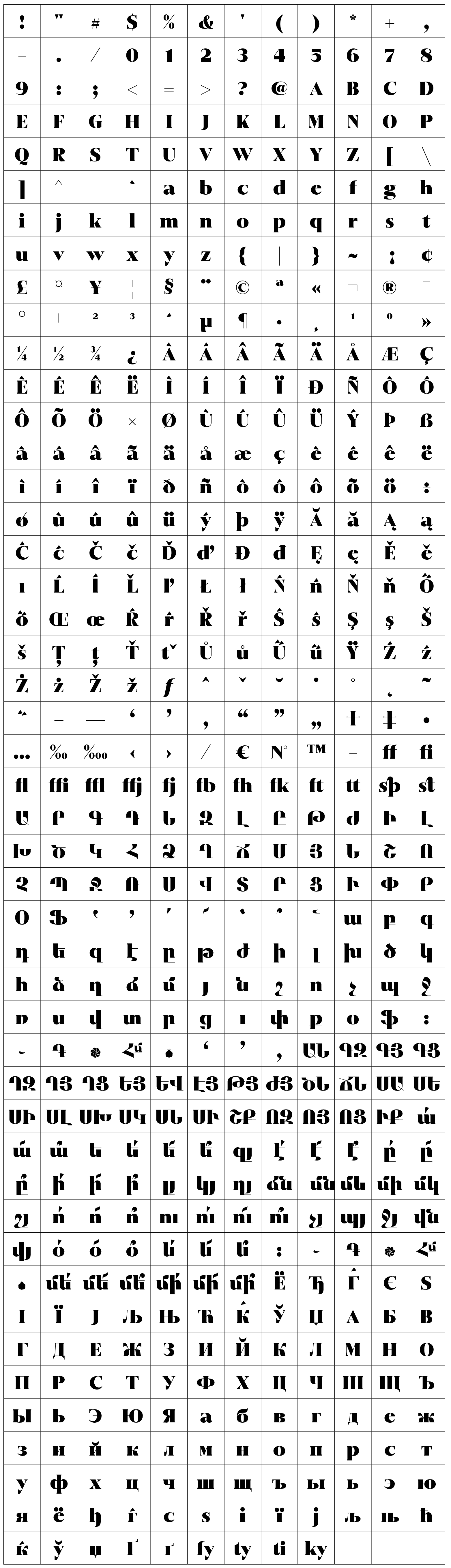
GHEA Elegant Extra Black
GHEA Elegant is a Display Slab Serif font for using in titles, posters and advertisements.
It included Armenian, Cyrillic and Latin Central European language systems.
The font includes Basic and many Advanced Ligatures for Latin and Armenian.
GHEA Elegant have original Serifs and looks very nice in small and big sizes.